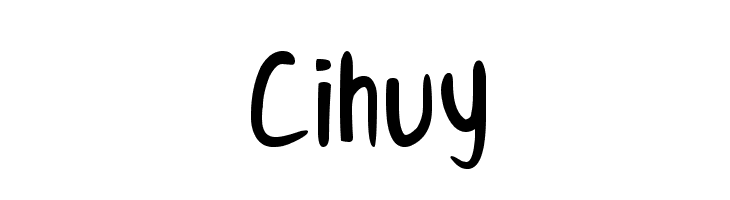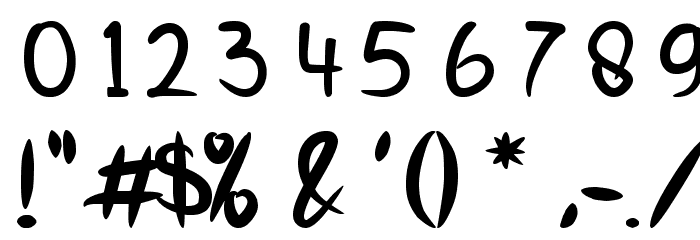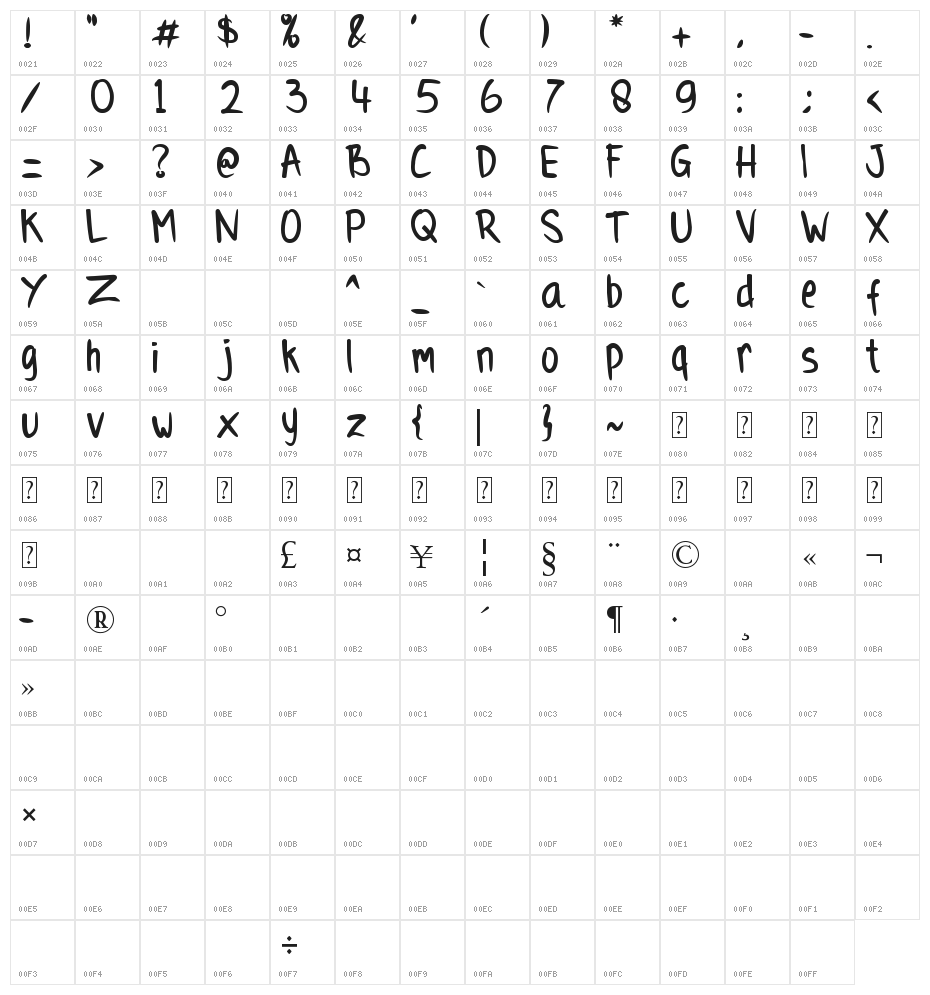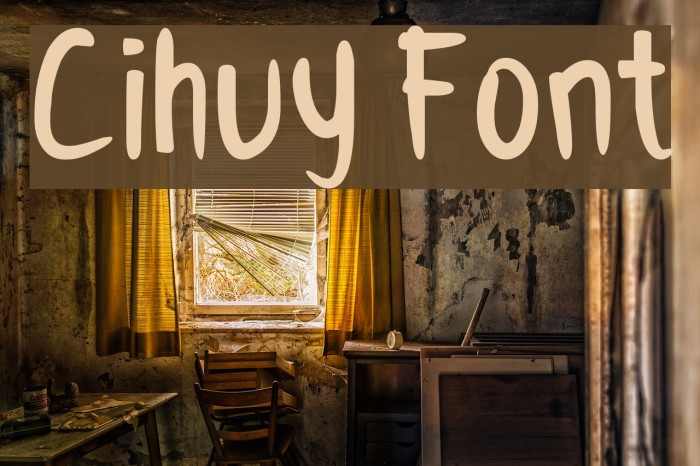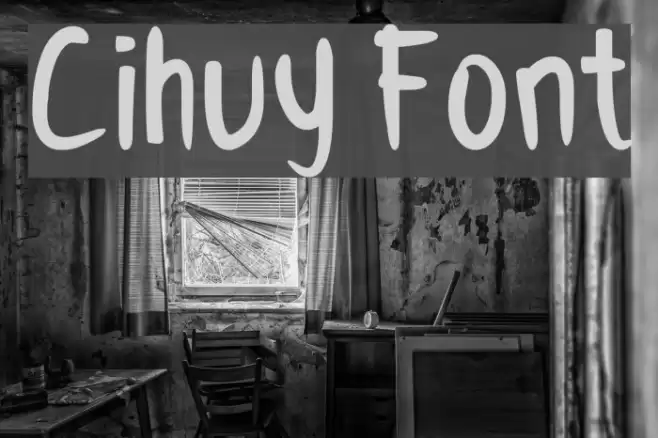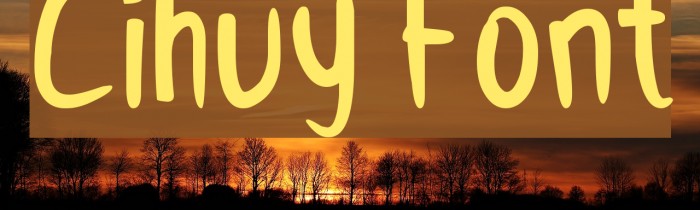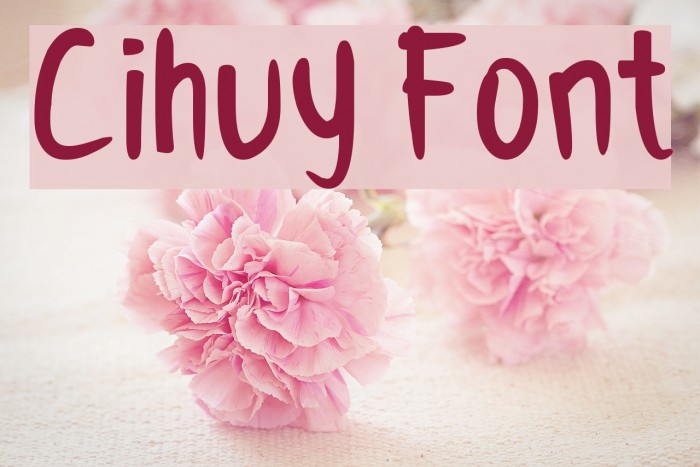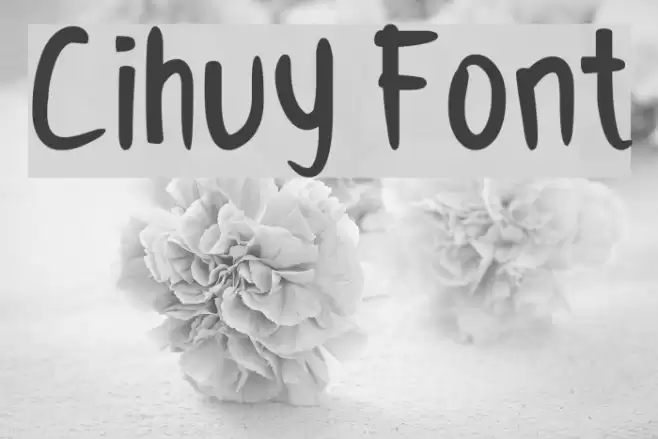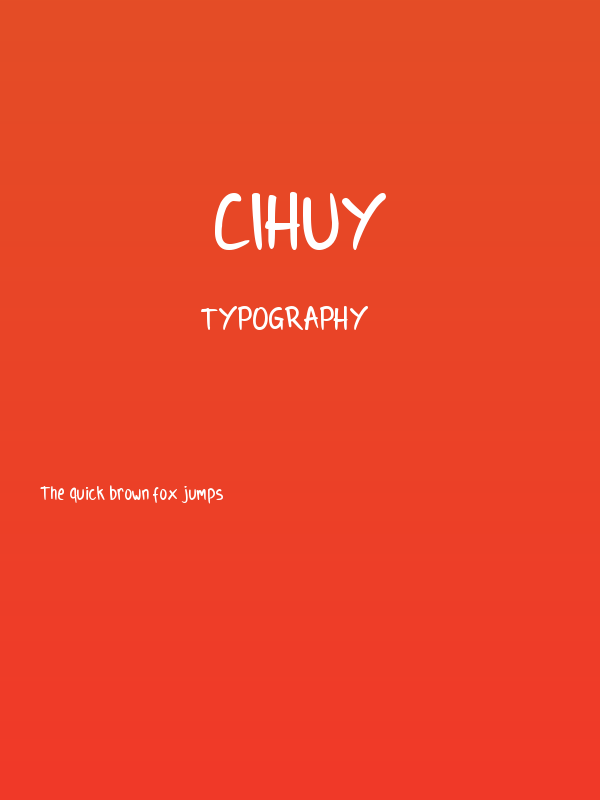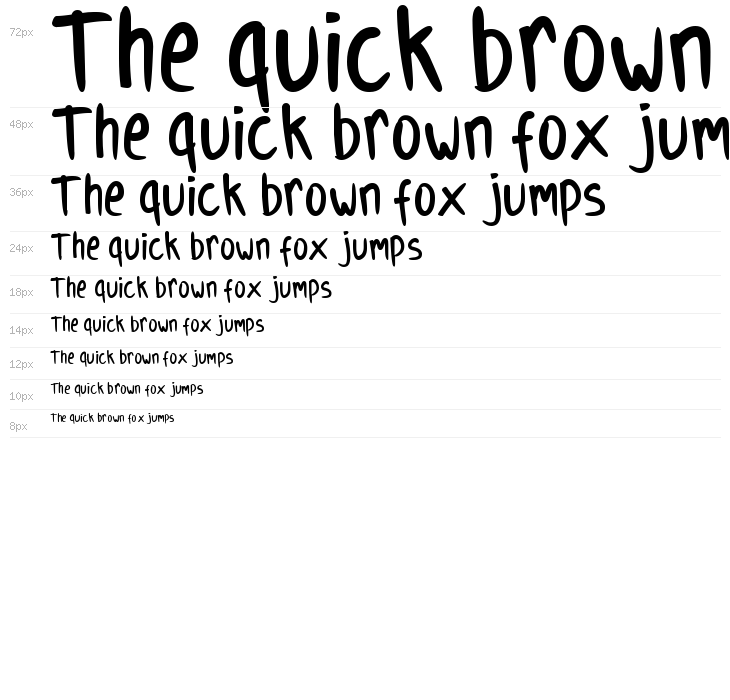
Cihuy Font
Cihuy Description
This playful and energetic font features a handwritten style with a casual and informal appearance. The letters are bold and slightly irregular, giving them a dynamic and lively feel. The uppercase and lowercase characters maintain a consistent style, with rounded edges and a slight slant that adds to the font's whimsical nature. The numbers and special characters follow the same design principles, ensuring a cohesive look across all elements. This font is perfect for projects that require a fun and approachable aesthetic.
| Proposed Projects | Ideal for children's books, greeting cards, playful branding, and social media graphics. |